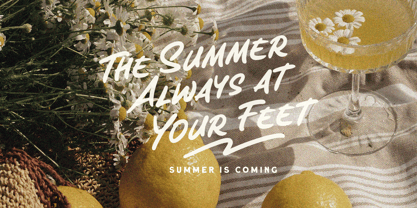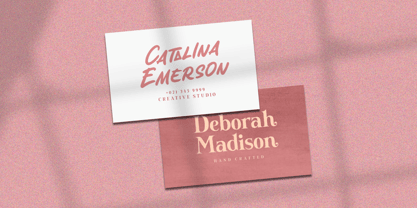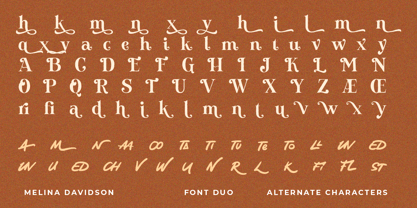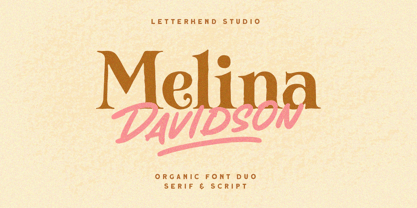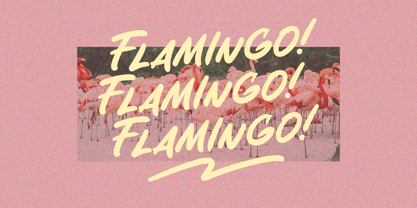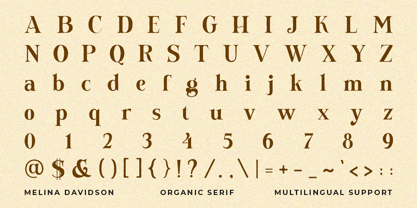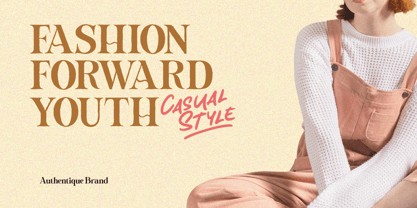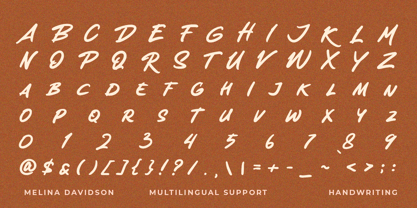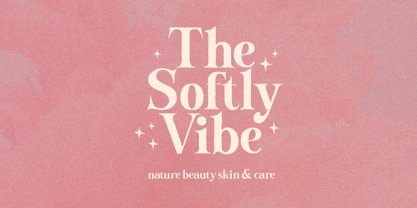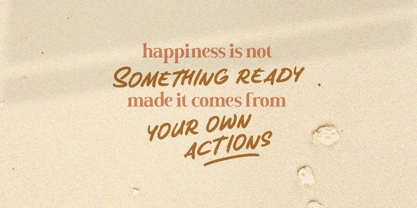
Melina Davidson
by Letterhend
The Melina Davidson Font Family was designed by Hendry Juanda and published by Letterhend. Melina Davidson contains 2 styles and family package options. More about this family
Melina Davidson is a font duo package contain a stylish serif with organic script. This font duo is purposely made for headline, display or logotype, and signature which need a standout appearing. This font perfectly made to be applied especially in logo, and the other various formal forms such as invitations, labels, logos, magazines, books, greeting / wedding cards, packaging, fashion, make up, stationery, novels, labels or any type of advertising purpose. Features : Serif & script Uppercase & lowercase Numbers and punctuation Alternates & Ligatures Multilingual PUA encoded